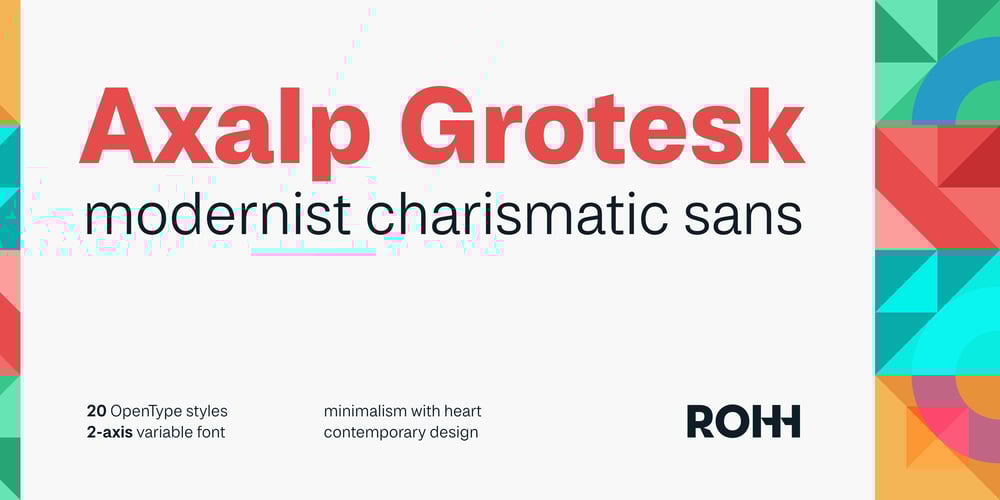
Axalp Grotesk Font Family was designed by Roch Modrzejewski and published by ROHH. Axalp Grotesk contains 21 styles and family package options. Introducing Axalp Grotesk: where Swiss design tradition fuses with a refreshingly vibrant personality.With its inviting rounded shapes and sharp angular details, Axalp Grotesk strikes the perfect balance between friendly and sophisticated.Versatile and adaptable to serve as your go-to corporate identity typeface or to add flair to modern branding, this family of fonts is like a Swiss Army knife for designers. Plus, its rich OpenType features mean you’ll have all the tools you need to make your text resonate and keep your audience engaged.With its precise, clean lines it’ll make your designs feel refined without losing their human spirit.Key Features• minimalism with soul• 20 styles (10 weights + italics)• cutting-edge 2-axis variable font (weight + slant)• alternate stylistic set, simplified• over 650 glyphs• Extended Latin language support